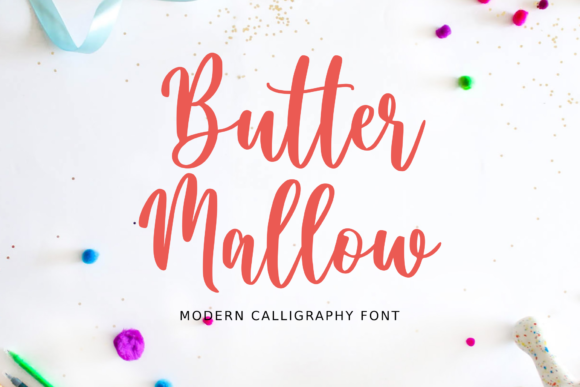
Meet Your New Best Friend: Butter Mallow Font
Have you ever been scrolling through social media, and a beautifully crafted logo or handwritten font catches your eye? You can’t help but wonder what inspired the designer to create something so unique and captivating. For me, it’s those moments that spark a creative itch, and I’m excited to share with you the latest addition to the world of typography: Butter Mallow Font.
This modern handwritten font is designed to evoke a sense of warmth and friendliness, making it the perfect fit for logos, branding, and social media graphics. With its versatility and charm, Butter Mallow Font is a valuable asset for designers looking to add a personal touch to their projects.
Butter Mallow Font Key Features
- Font Family: A handwritten font with a playful, whimsical feel, suitable for titles, headings, and creative projects.
- Font Size: Designed to be used at sizes ranging from 12 to 72 points, with optimal readability at 18-24 points.
- Resolution: Optimized for high-resolution displays, including Retina and 4K screens, ensuring crisp and clear rendering of the font.
- Unique Characteristics: Features a unique blend of handwritten and digital elements, with subtle imperfections and texture that add to its charm and character.
- Language Support: Supports a wide range of languages, including Latin, Cyrillic, and Greek alphabets, making it suitable for multilingual designs and projects.
Designer Review: Butter Mallow Font
Overall, I’m a big fan of the Butter Mallow Font. It’s a playful, cursive script font that’s perfect for adding a touch of whimsy to your designs.
- ✨ Unique charm: The Butter Mallow Font has a distinct personality that sets it apart from more generic script fonts.
- ✨ Versatility: It works well for both digital and print designs, from logos to signage to marketing materials.
- ✨ Customizable: The font comes in a range of weights and styles, allowing you to tailor it to your specific design needs.
- ⚠️ Limited legibility: At smaller font sizes, the Butter Mallow Font can become difficult to read, particularly for body text.
- ⚠️ Not ideal for long blocks of text: The font’s playful, cursive nature makes it more suited for short, snappy phrases or headlines rather than large blocks of text.
The Butter Mallow Font is a great choice for designers looking to add a touch of personality to their projects. While it may have some limitations, its unique charm and versatility make it a valuable addition to any font collection.
Tips for Getting the Most Out of the Butter Mallow Font
Use the Butter Mallow Font to add a touch of whimsy and playfulness to your designs. It pairs well with bold colors and geometric shapes. Experiment with different font sizes and styles to create a unique look.
The Butter Mallow Font is perfect for:
- Food and dessert branding
- Playful advertisements
- Custom graphics and logos Alternatives to Butter Mallow Font
Great Vibes is a playful, cursive script font that can add a whimsical touch to your designs. It’s perfect for creating a friendly and approachable atmosphere, especially in branding and advertising materials. Compared to Butter Mallow Font, Great Vibes has a more relaxed and casual feel, making it ideal for designs that require a laid-back tone.
Carolyna Pro is a modern, elegant script font that’s perfect for creating a sophisticated and refined look. It’s great for use in high-end branding, invitations, and other luxury materials. Compared to Butter Mallow Font, Carolyna Pro has a more polished and refined feel, making it ideal for designs that require a touch of sophistication.
Didot Script
Didot Script is a luxurious, elegant script font that’s perfect for creating a high-end look. It’s great for use in luxury branding, invitations, and other high-end materials. Compared to Butter Mallow Font, Didot Script has a more formal and refined feel, making it ideal for designs that require a touch of luxury and sophistication.
Alex Brush is a beautiful, elegant script font that’s perfect for creating a sophisticated and refined look. It’s great for use in high-end branding, invitations, and other luxury materials. Compared to Butter Mallow Font, Alex Brush has a more delicate and refined feel, making it ideal for designs that require a touch of elegance and sophistication.